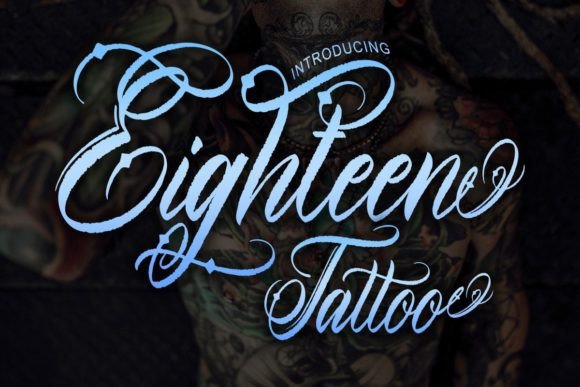
Introducing Eighteen Tattoo Font, the ultimate choice for those seeking the perfect font to elevate their projects with a touch of cool and refined elegance. Crafted by the talented Al Mughni Studio, this blackletter font is guaranteed to captivate your audience and leave a lasting impression.
With its intricate design and attention to detail, Eighteen Tattoo Font is the ideal choice for any project that requires a touch of sophistication. Whether you're designing a church sign, creating a logo, or enhancing your website, this font will effortlessly elevate your work to new heights.
Searching for the best font for your church sign? Look no further. Eighteen Tattoo Font is the epitome of excellence when it comes to religious design. Its bold and powerful blackletter style exudes a sense of tradition and reverence, making it the perfect choice for conveying the sacredness of your message.
But the appeal of Eighteen Tattoo Font goes far beyond its religious applications. Its versatility allows it to seamlessly blend into various design projects, giving a unique and distinctive look to your creations. From tattoo parlors to music albums, this font will add a touch of edginess and creativity that will set your work apart from the rest.
Embrace the beauty of Eighteen Tattoo Font and watch as your designs come to life with its captivating charm. Its timeless elegance and emotional impact will leave a lasting impression on your audience, making your work truly unforgettable.